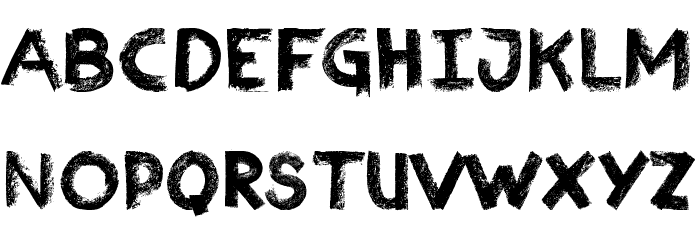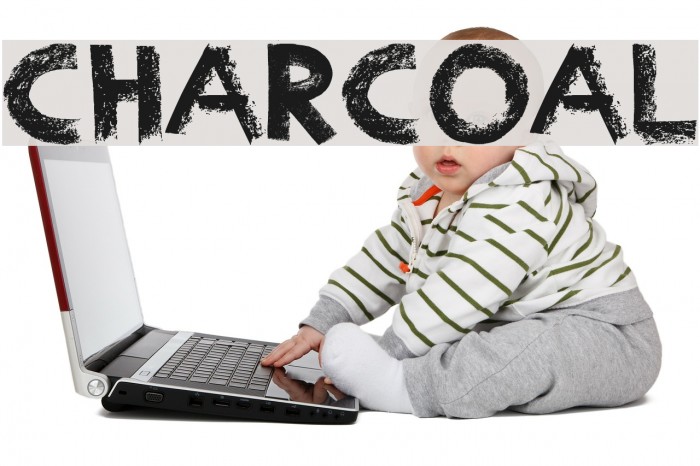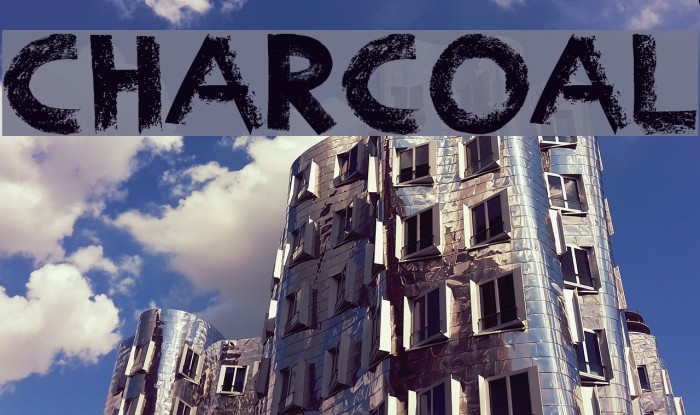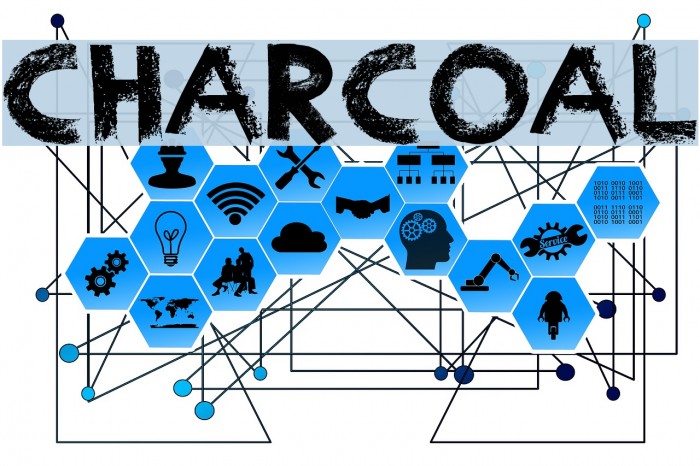
Charcoal Font
This font exhibits a rugged and textured appearance, reminiscent of charcoal sketches. Each character is imbued with a hand-drawn quality, featuring uneven edges and a distressed look that adds a sense of depth and personality. The uppercase letters are bold and commanding, while the lowercase letters maintain the same textured style, offering a cohesive visual experience. The numbers and special characters are equally stylized, ensuring consistency across all text elements. This font's unique aesthetic makes it ideal for projects that require a raw, artistic touch.
A rugged, textured font with a hand-drawn, charcoal-like appearance.
- Proposed Projects: Ideal for artistic projects, posters, album covers, and any design requiring a bold, textured aesthetic.
- Use Case: Headlines, Posters, Artistic Designs